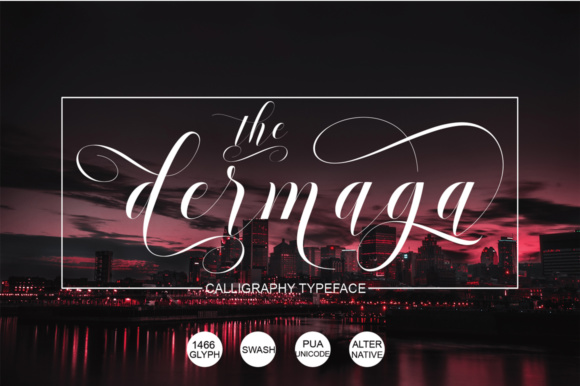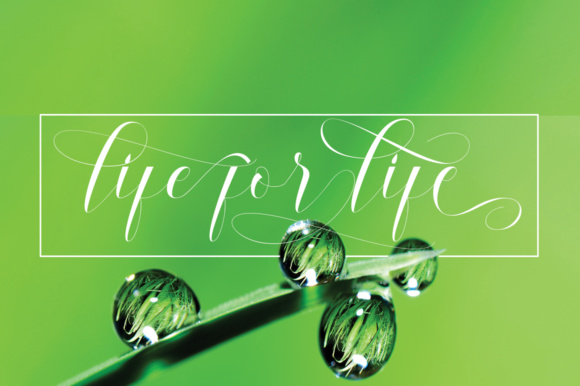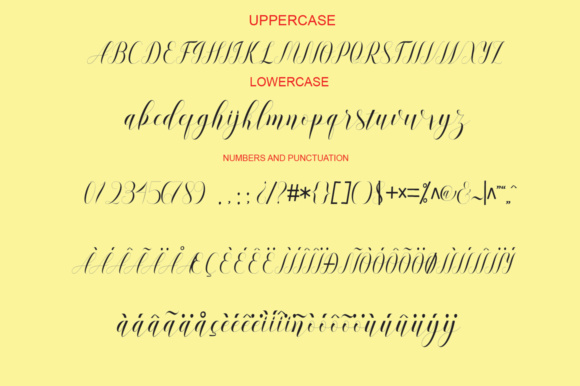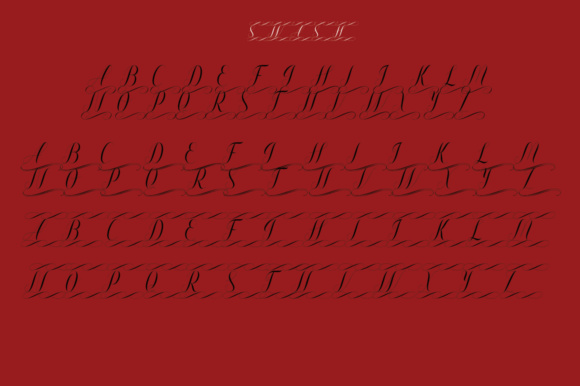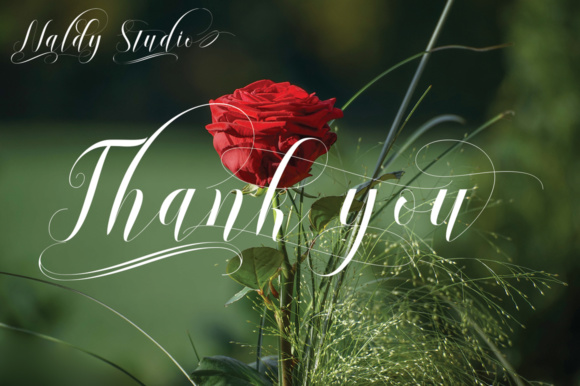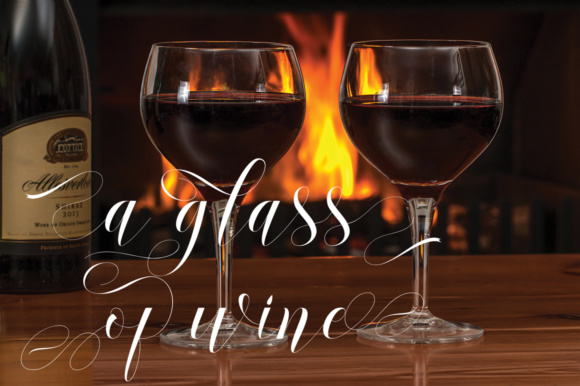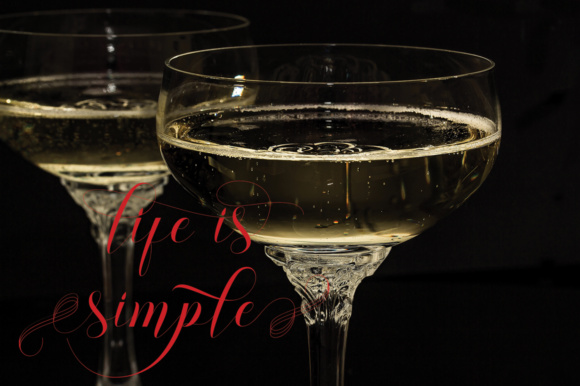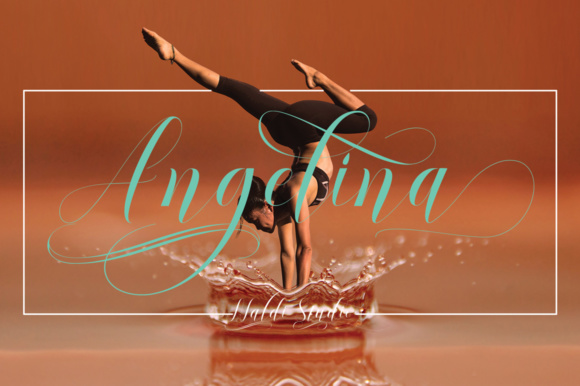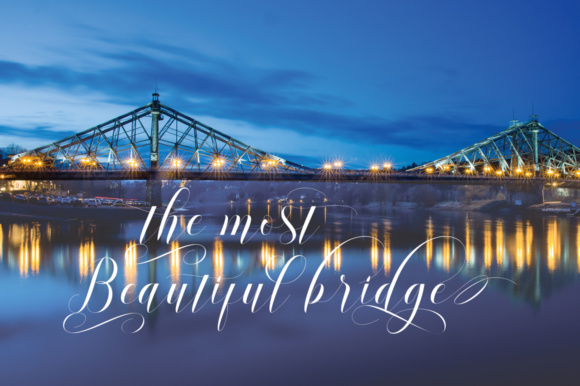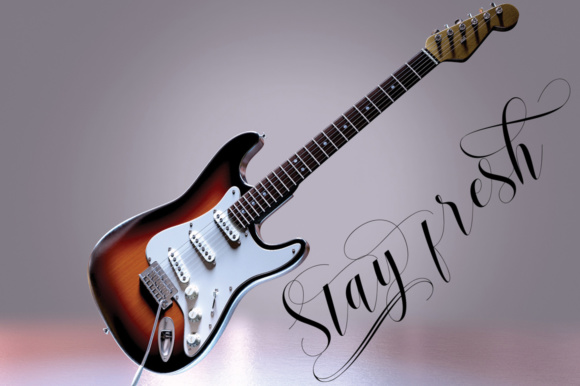
Dermaga Font
About Dermaga Font
Dermaga is a beautiful and extensive script calligraphy font, ideal for use in a wide range of projects! This is a beautiful set of over 1400+ glyphs, and looks great in romantic and other thematic applications.